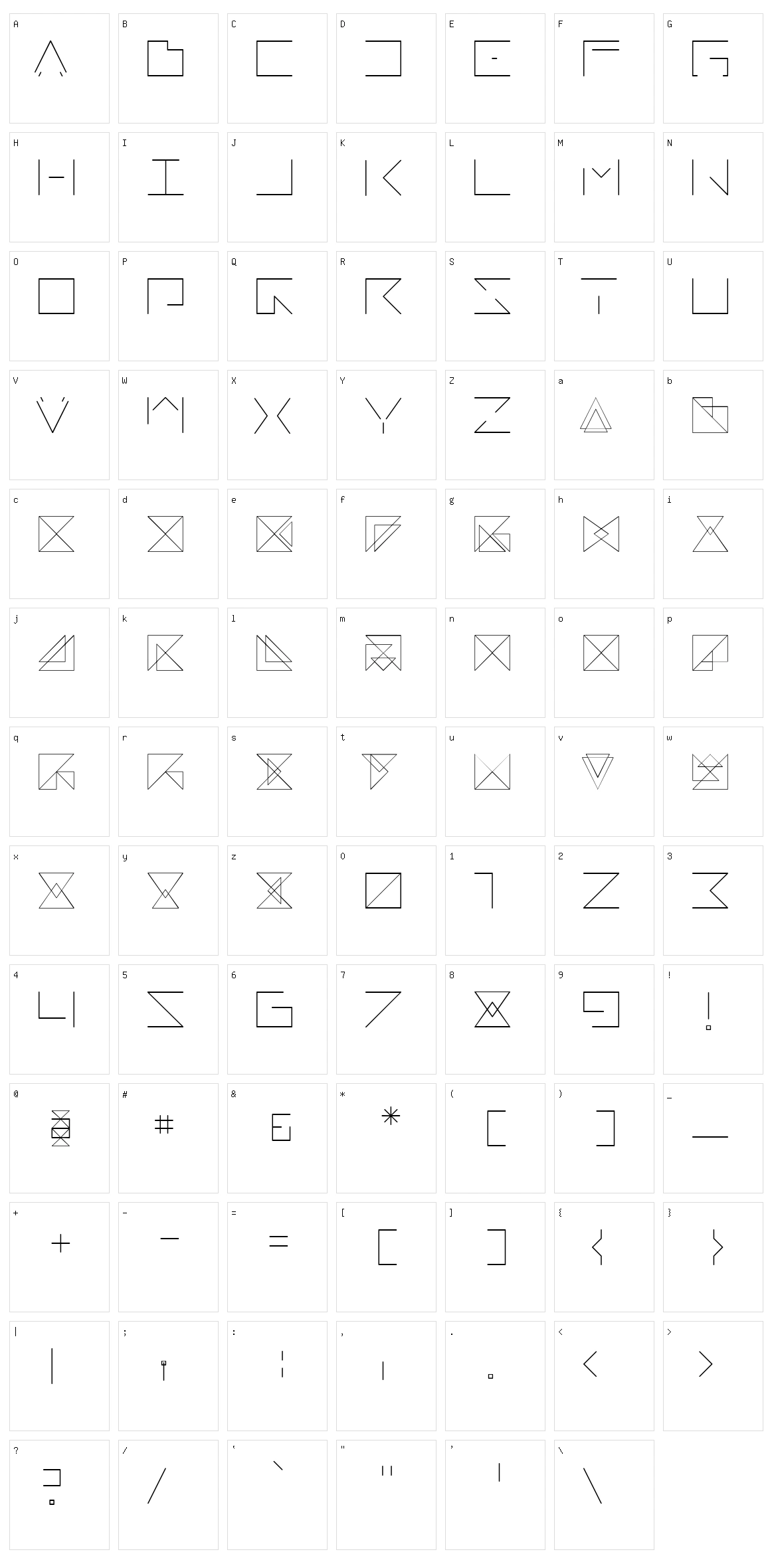
The free font Remarkable is carefully designed by Gr81 Life, showcasing a thoughtful balance of creativity and usability and falls under the Square font style. When you download the ZIP file, it contains only 17.87 KB of font files, making it lightweight and quick to download. Please review the license details below to understand permitted usage and distribution rights. If license information is not available, we recommend using this font for personal projects only or contacting the author directly for commercial usage permissions.